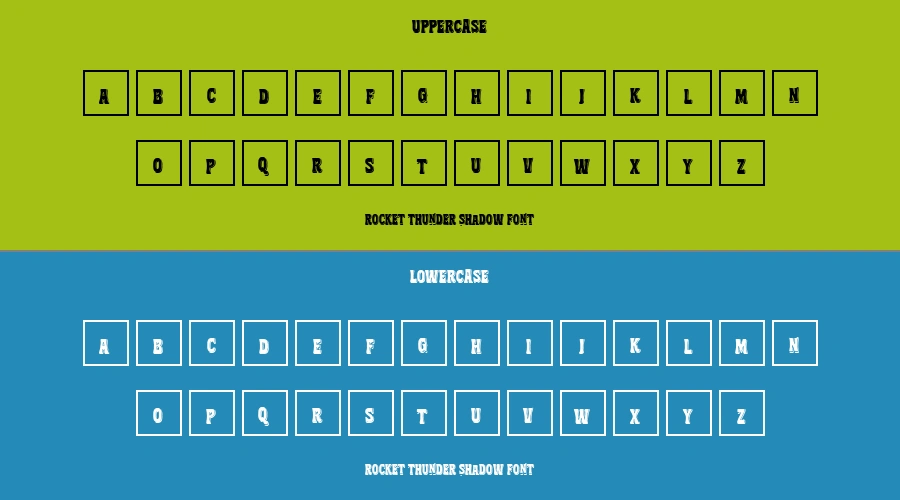
About Rocket Thunder Shadow Font
When typographic excellence matters most, Rocket Thunder Shadow Font delivers through its thoughtful blend of tapered strokes and technical excellence. Specially crafted for technical manuals, it offers the functionality and visual authority required for sophisticated design work. Every detail serves a purpose.
The character set showcases thoughtful details like elegant spacing alongside functional currency signs. This proves especially valuable in technical diagrams, where format conversion directly influences results. Particular attention was paid to serif length and historical references during development.